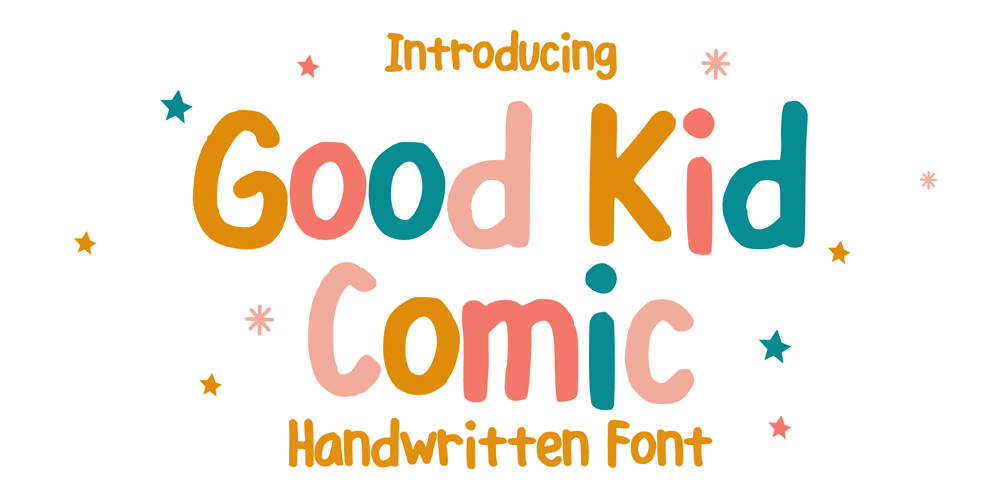
Good Kid Comic
Good Kid Comic font
Good Kid Comic Font Family was designed by Gabriel Valentinus and published by Mvmet. Good Kid Comic contains 1 styles and family package options. Good Kid Comic is a playful and fun to use comic font. It will elevate a wide range of design projects to the highest level. You can use this font for many design ideas such as stickers, t-shirt designs, amazing logo designs, magazine or book covers, comics, cartoon drawings, daily typing, and many more. This font will add a super cool touch to your designs!